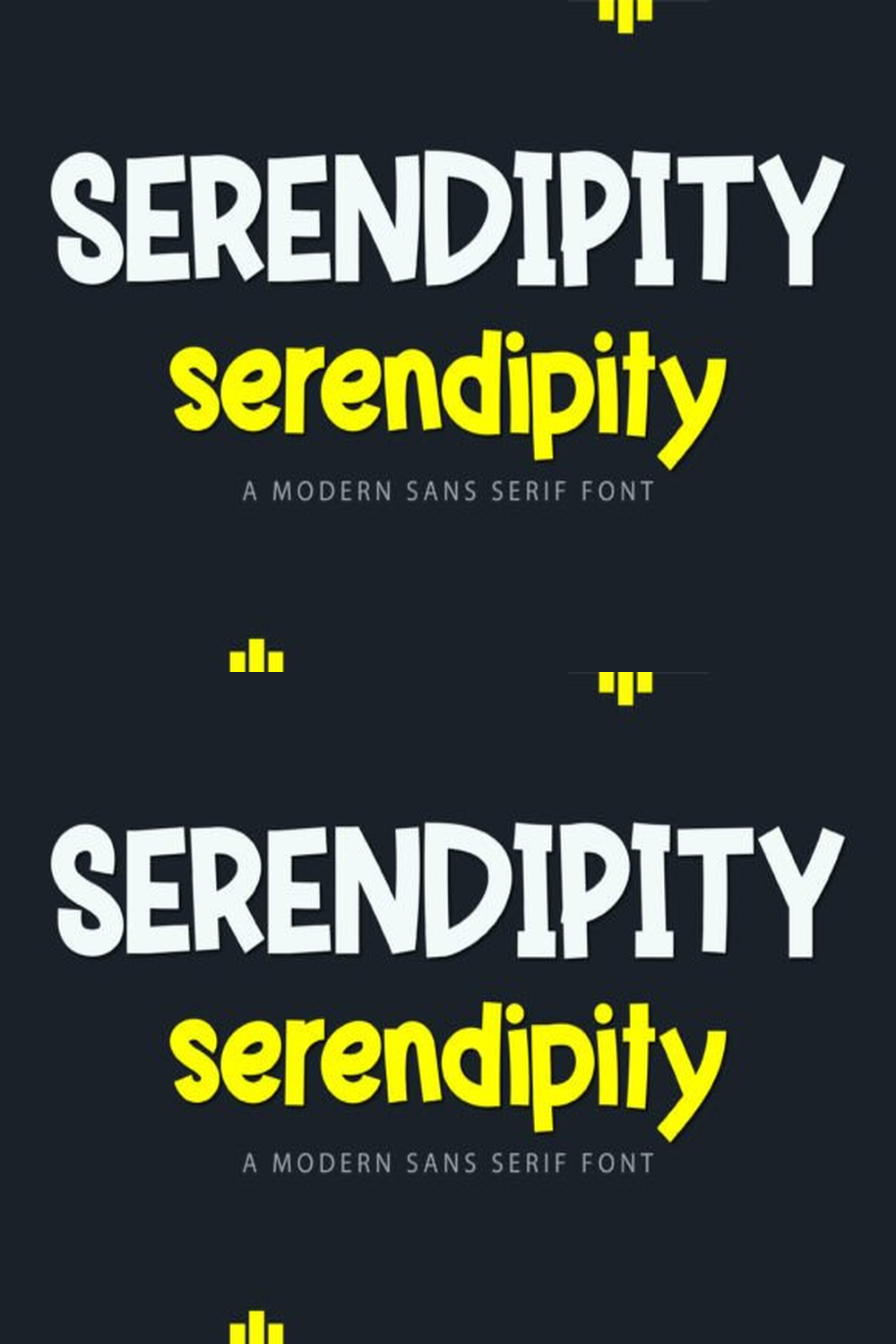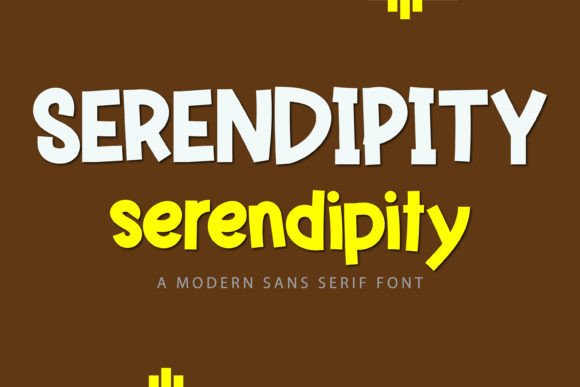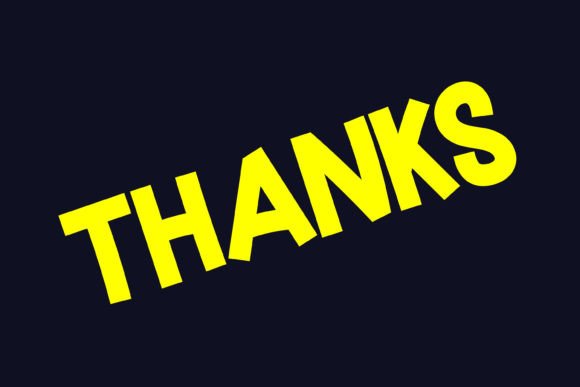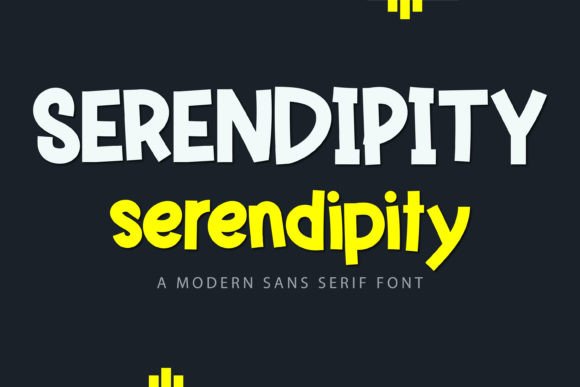
Serendipity Font: A Playful Sans Serif for Cute DIY & Craft Projects
About the Serendipity Font
Welcome to the world of Serendipity Font, a typeface that will inspire your next great project. Serendipity is a fun and quirky sans serif font. Add it to your crafty ideas, and enjoy the results! It will look great -on cards, promotional ads, social media posts, product packaging, and others.